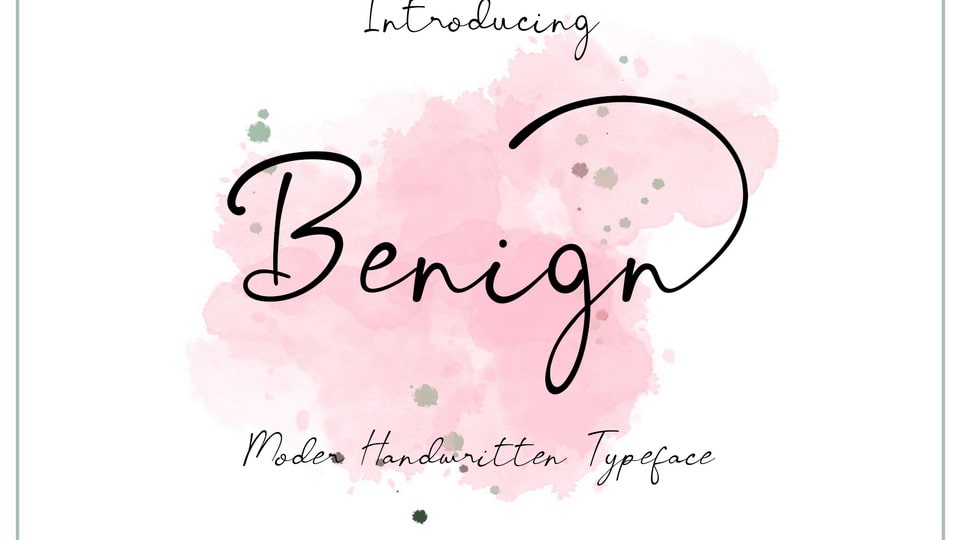
Download Benign font, a handcrafted handwritten typeface with smooth, flowing strokes. It’s a perfect choice for creative projects such as invitations, logos, headings.
Designer: NDNL Studio